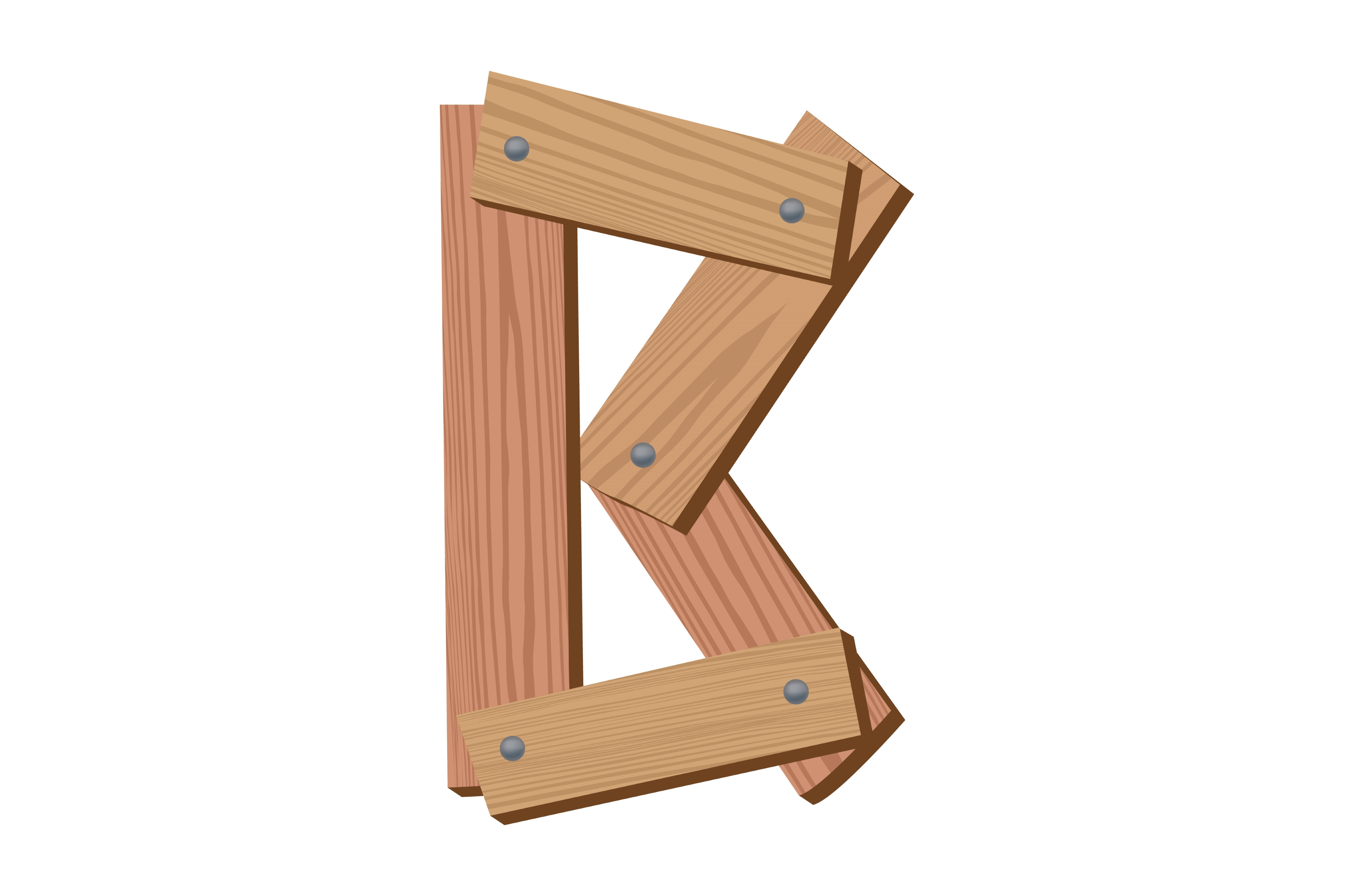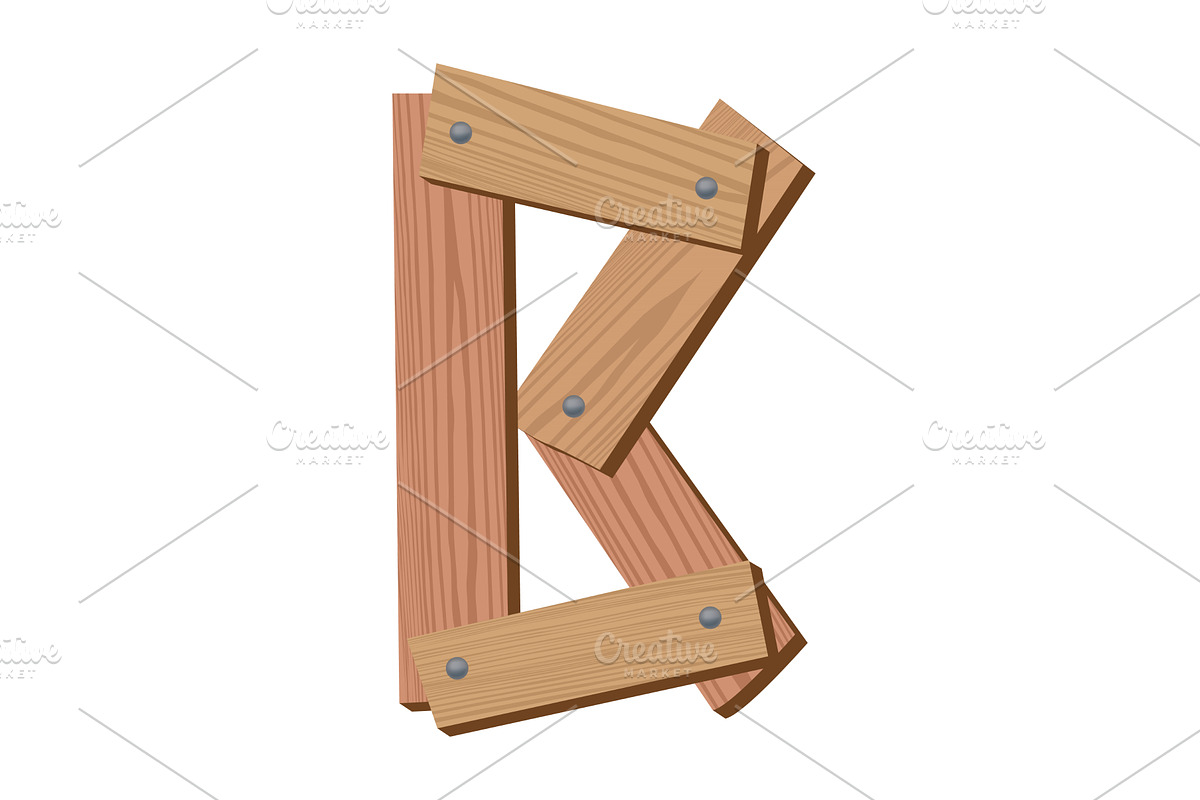
Wooden alphabet font, symbol B
Wooden alphabet font, symbol B. Texture letter isolated on white, vector illustration. Typography typeface made of wooden planks.